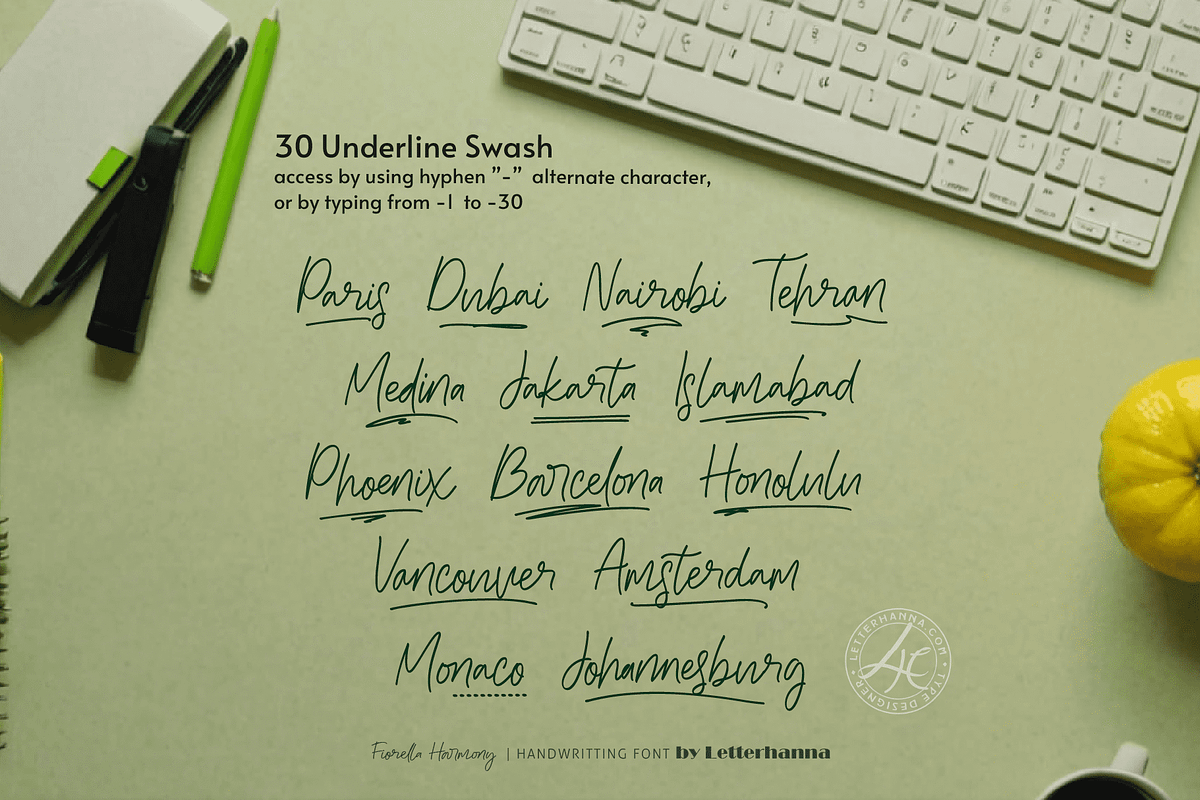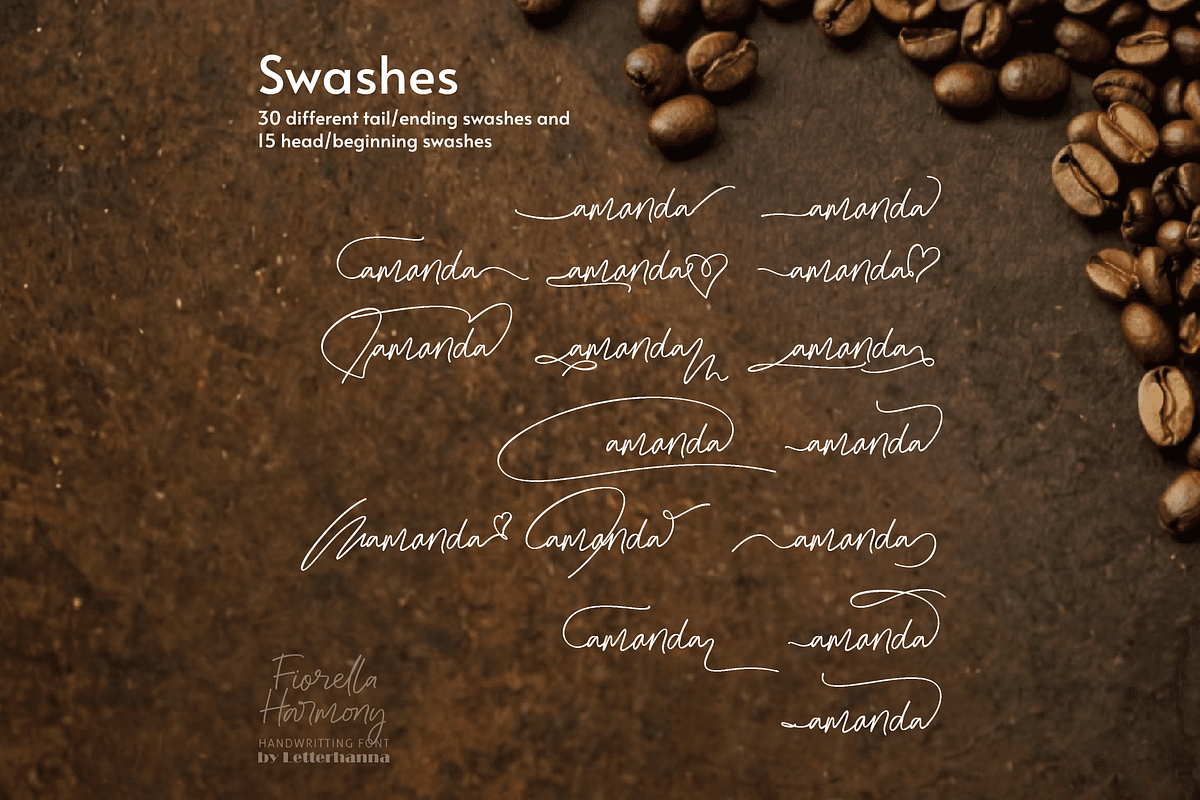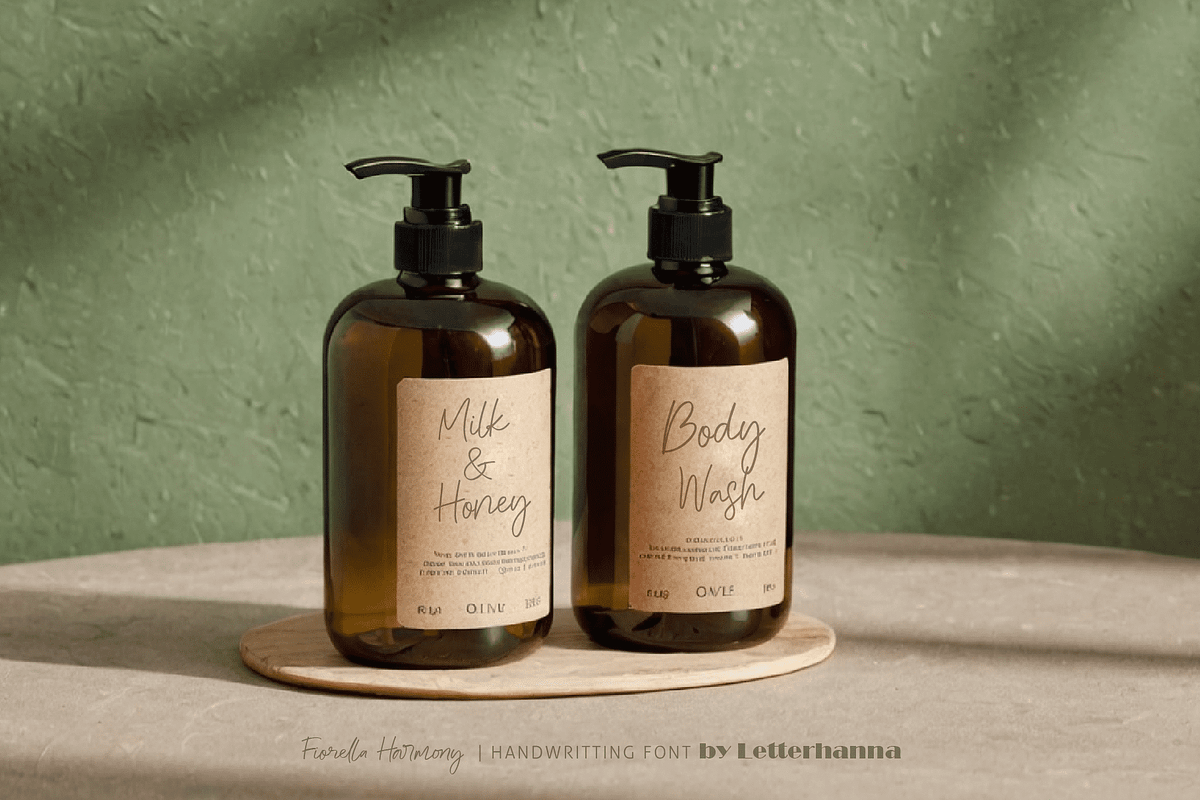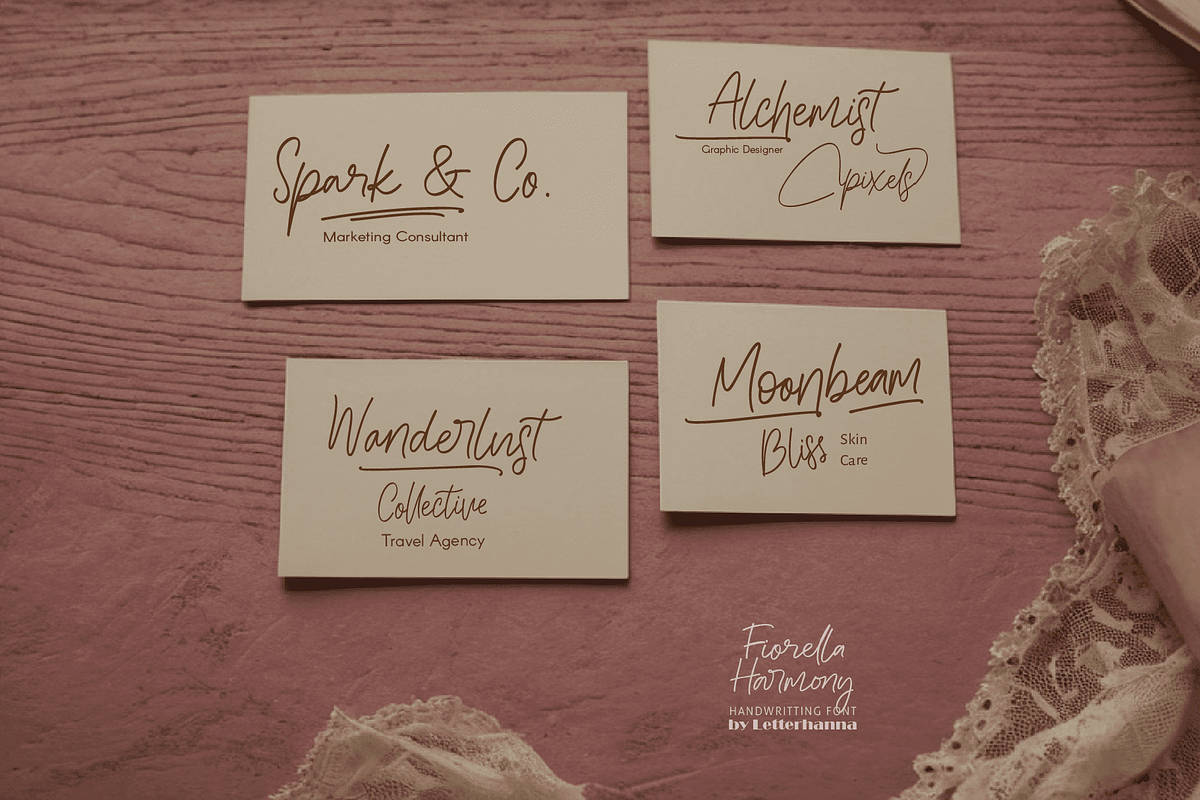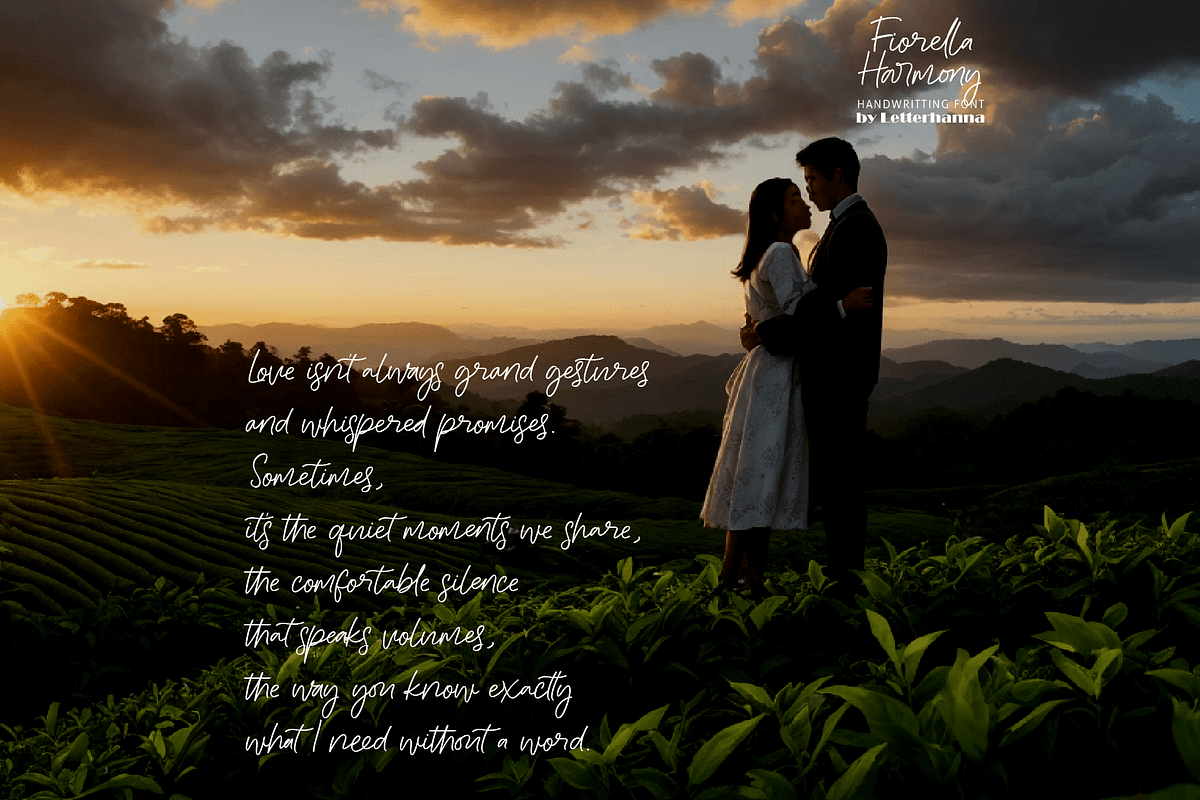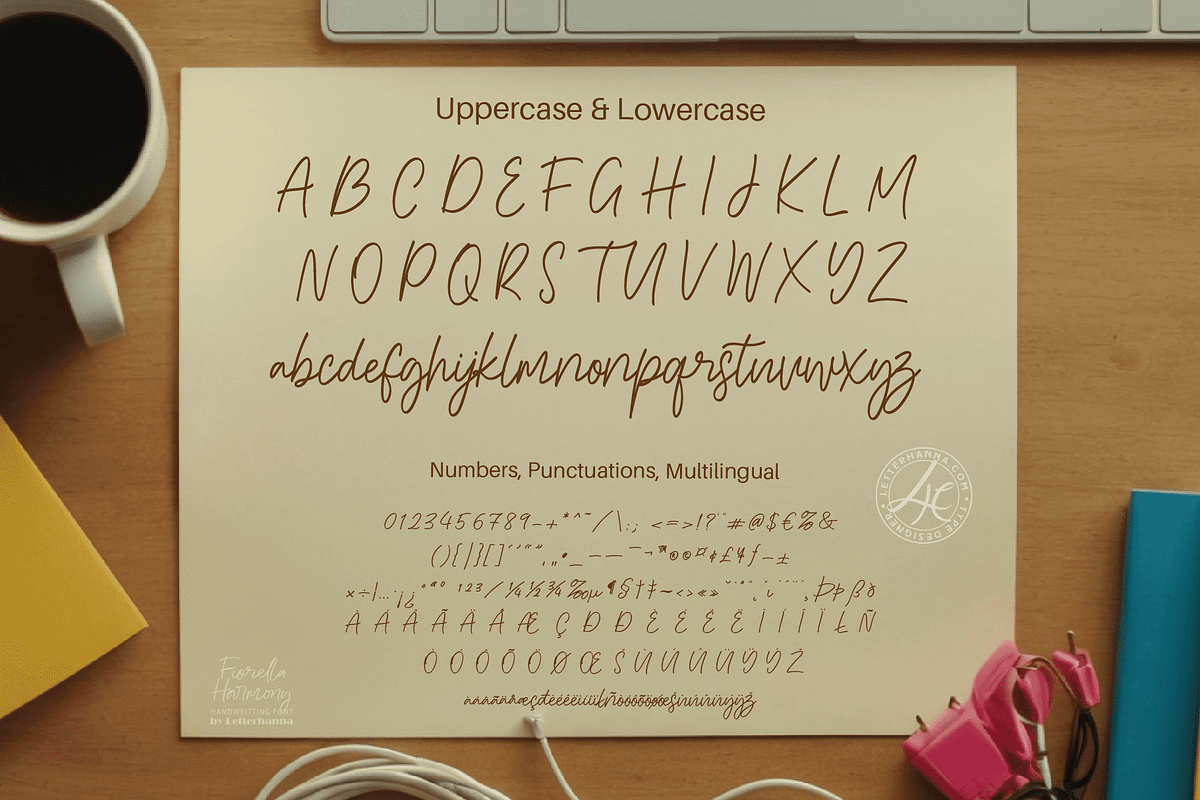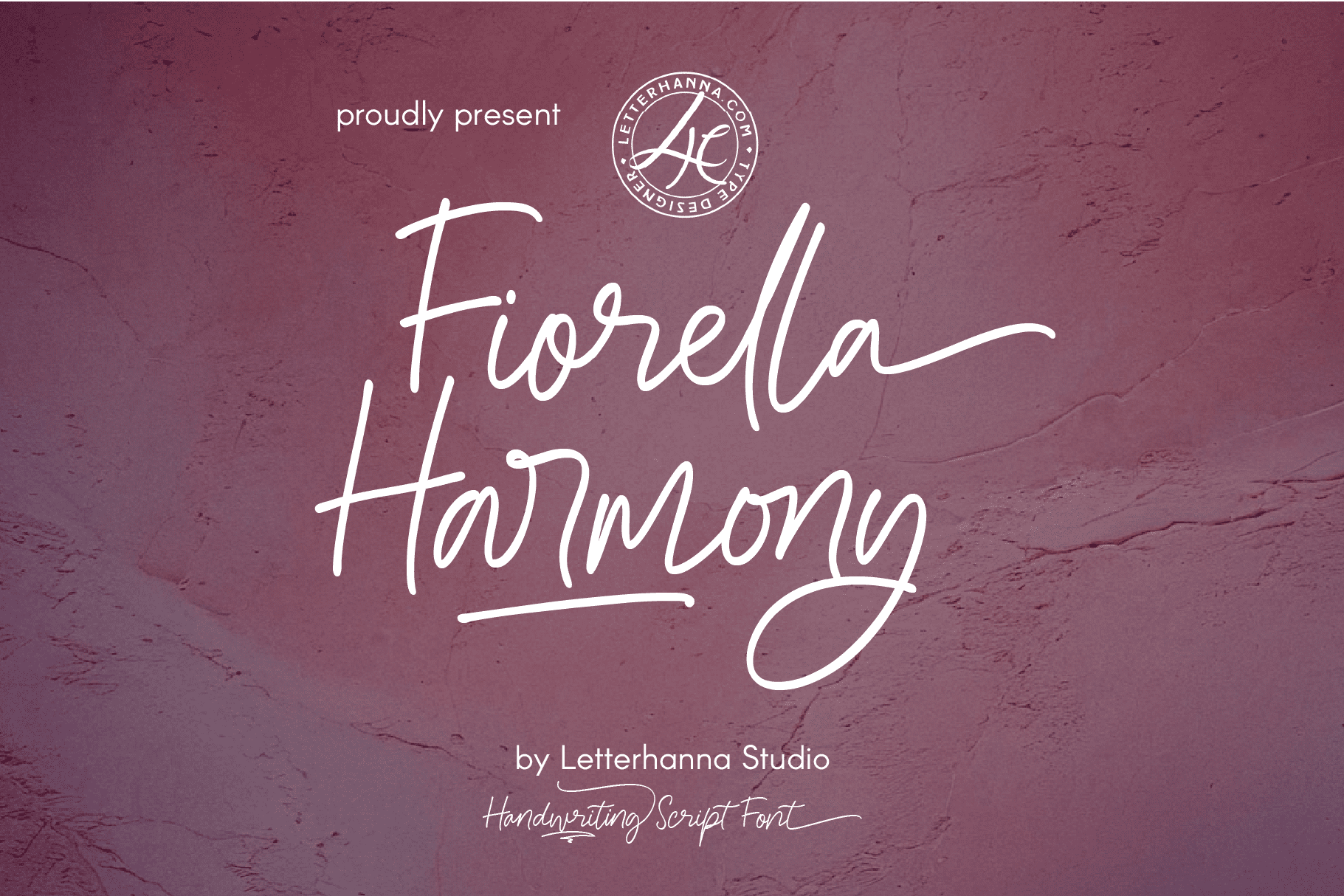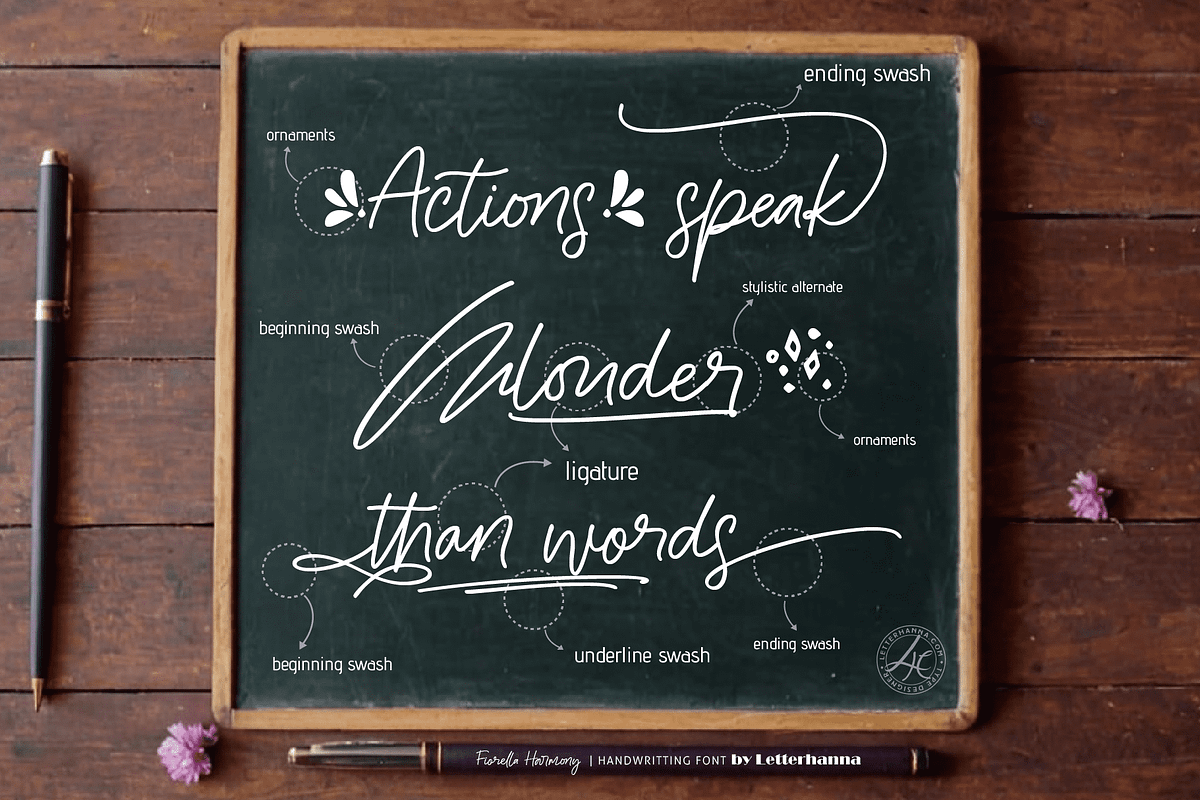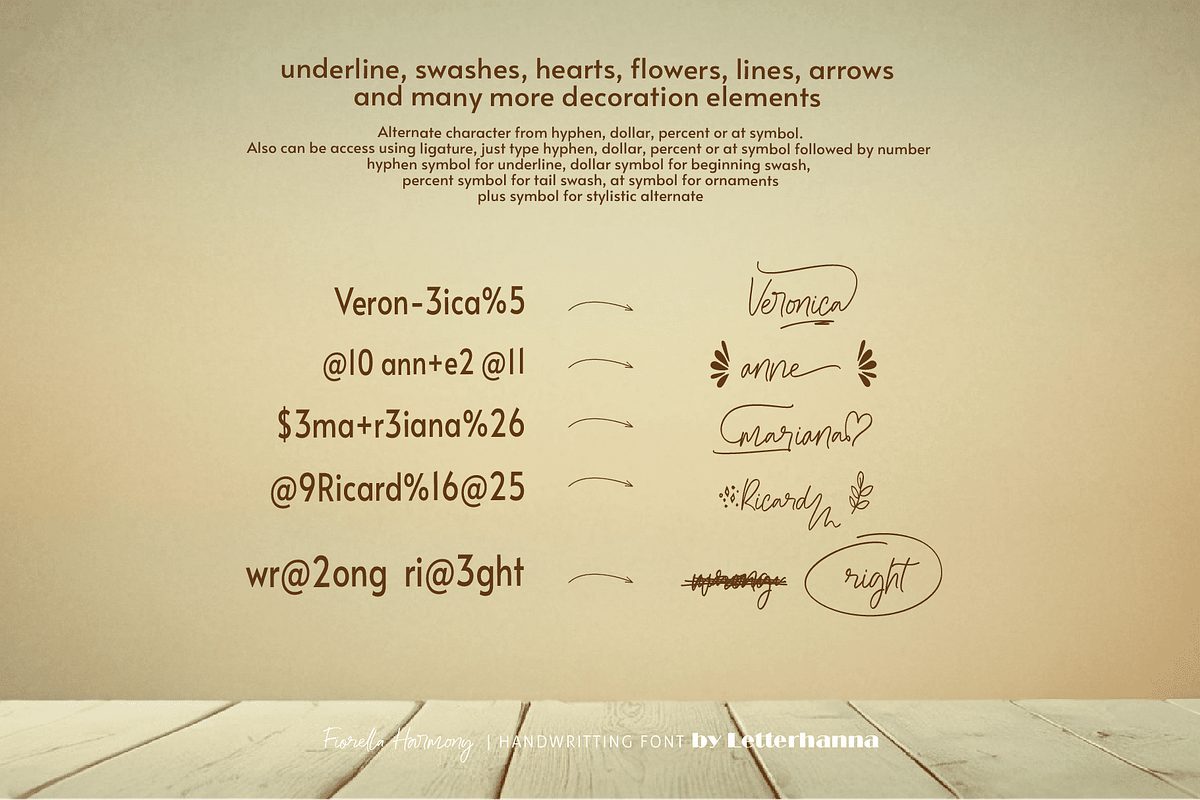
Fiorella Harmony Font
Indulge your creativity with Fiorella Harmony, a brand new handwritten script font designed to bring a touch of elegance and sophistication to your projects. Fiorella Harmony's effortless flow and delicate curves make it perfect for adding a personal touch to wedding invitations, branding materials, and any design where a touch of handwritten charm is desired.
Whether you're a seasoned designer or just starting out, Fiorella Harmony's user-friendly design makes it easy to create stunning text effects. With its smooth letterforms and beautiful flourishes, Fiorella Harmony is sure to become your go-to font for adding a touch of handwritten magic to your designs.
Easy Access to Glyphs and Swashes
Gain easy access to all alternate glyphs, swashes, ornaments, and underlines by simply using ligatures. You can try them out yourself in the font preview tool on our website, letterhanna.com.
Accessing Stylistic Alternates
Stylistic alternates can be accessed by typing a plus symbol "+" in front of the original letter. For example, type "+a" to get the stylistic alternate of the letter a.
Accessing Swashes and Ornaments
Underline Swashes: Use a hyphen symbol "-" followed by a number between 1 and 30. For example, type "-3", "-22", or "-17" to get various underline swashes.
Head/Beginning Swashes: Use a dollar sign "$" followed by a number between 1 and 9. For example, type "$2" or "$8" to get different head/beginning swashes.
Tail/Ending Swashes: Use a percent sign "%" followed by a number between 1 and 30. For example, type "%3" or "%15" to get various tail/ending swashes.
Ornaments: Use an "at" symbol "@" followed by a number between 1 and 26. For example, type "@4" or "@13" to get different ornaments.
PUA Encoding for Ease of Use. Fiorella Harmony Font is also PUA encoded, which means you can access all the glyphs and swashes with ease!
Uppercase and lowercase letters
Numbers and punctuation marks
Beginning and ending swashes
Underline swashes
Stylistic alternates
Ornaments
Easy access to swashes using ligatures